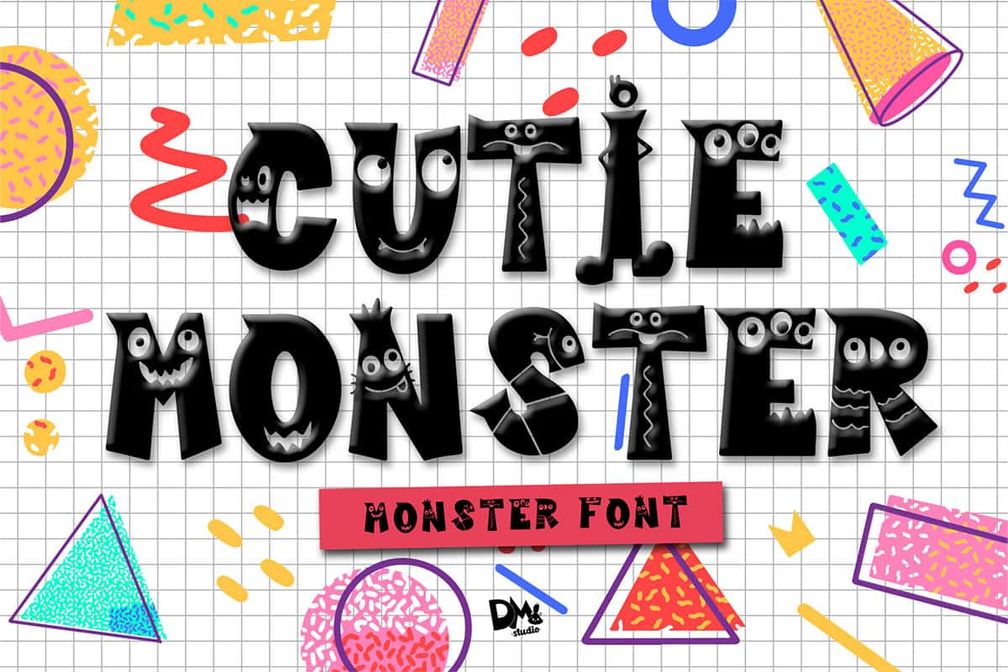
Cutie Monster – Monster Font
The Cutie Monster Font is a playful and lively typeface that brings adorable and lovable monsters to life in your designs. With its quirky letterforms and friendly characters, this font adds a touch of whimsy and fun to children’s books, party invitations, game graphics, and other creative projects.
1. Playful and Lively Style: The Cutie Monster Font exudes a fun and energetic aesthetic. Its unique letterforms and expressive characters capture the charm and playfulness of lovable monsters, creating a delightful and engaging look for your designs.
2. Quirky and Adorable Design: The font’s quirky and whimsical letterforms add personality and charm to your typography. Each character has its own unique characteristics, making it perfect for projects that aim to bring a smile to people’s faces.
3. Versatile Application: This font is versatile and well-suited for various design projects that target a younger audience or evoke a sense of imagination and playfulness. Use it in children’s books, party invitations, game graphics, branding, and more to create a captivating and child-friendly design.
4. Uppercase and Lowercase Letters: The font includes both uppercase and lowercase letters, providing flexibility and creative freedom in your designs. Mix and match the cases to create visually appealing and balanced typography.
5. Punctuation and Symbols: In addition to the alphabet, the Cutie Monster Font includes a comprehensive set of punctuation marks, numerals, and common symbols. This ensures consistency and ease of use when incorporating the font into your design projects.
Embrace the whimsical and lovable nature of the Cutie Monster Font. Let its playful and friendly characters bring a touch of fun and imagination to your children’s books, party invitations, and game graphics. Create designs that capture the hearts and spark the imagination of both children and the young at heart.